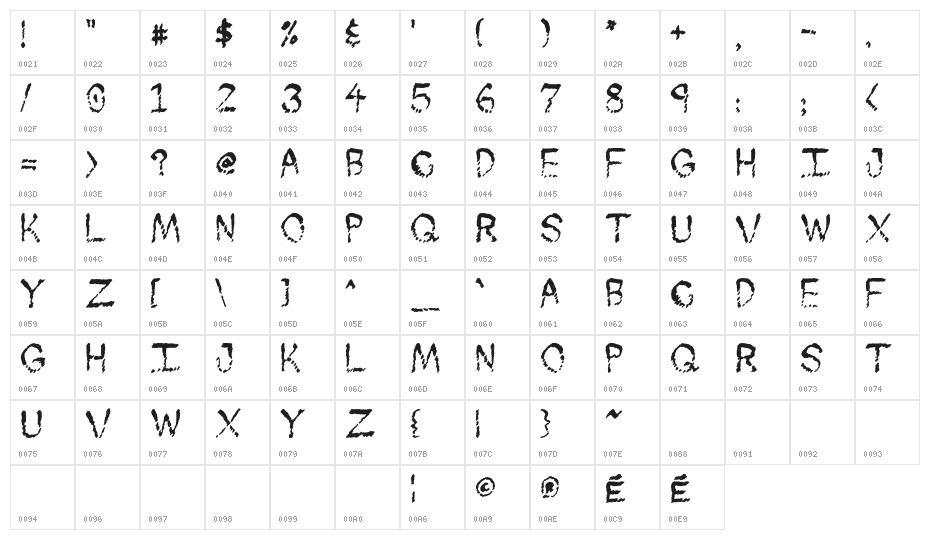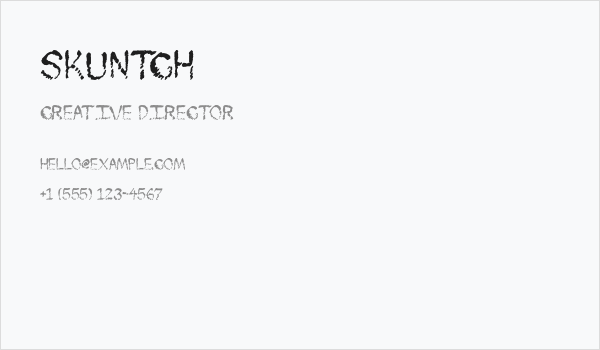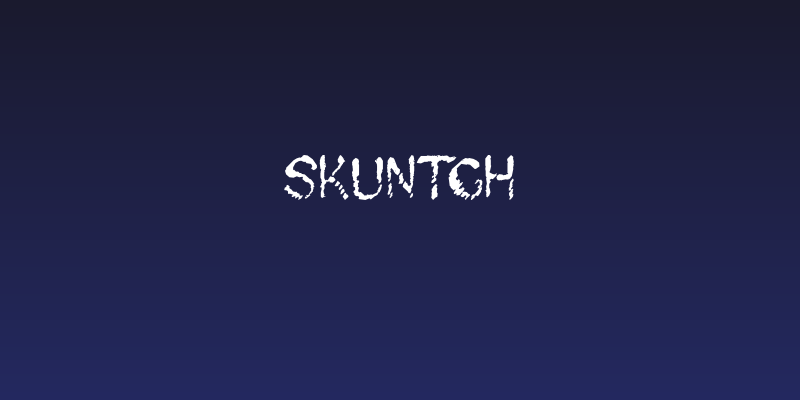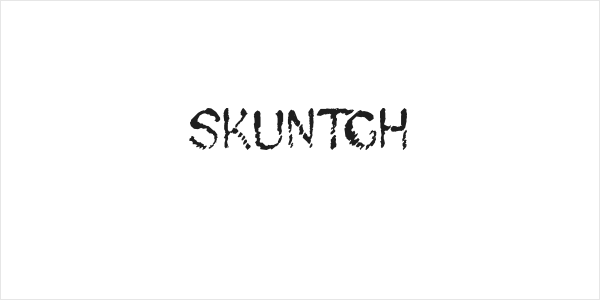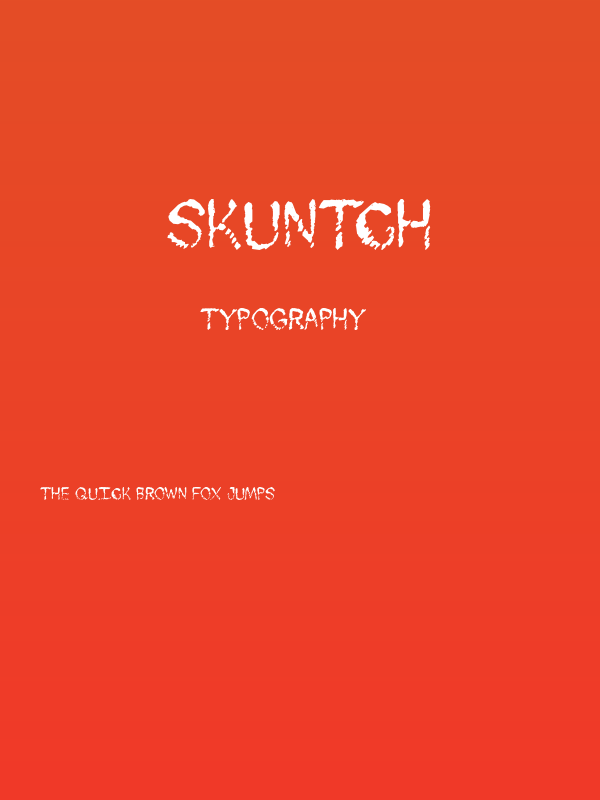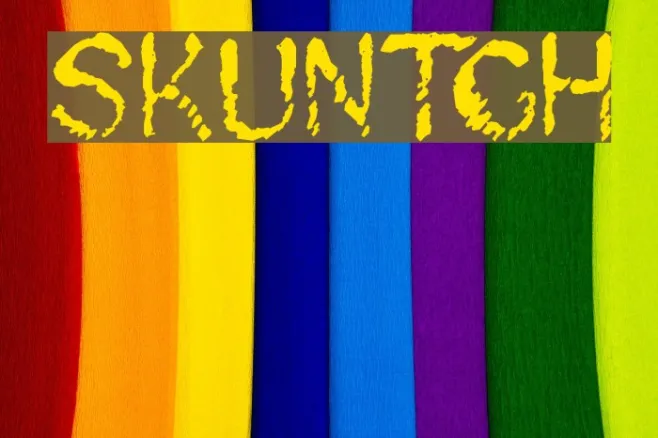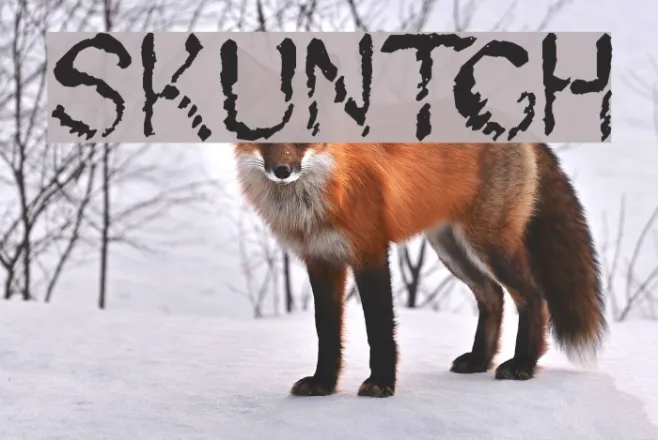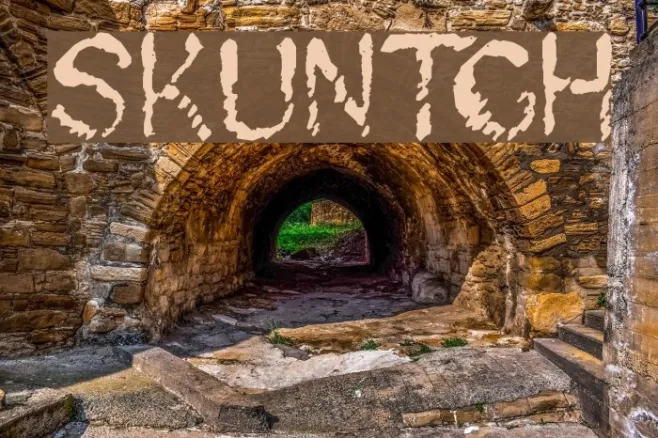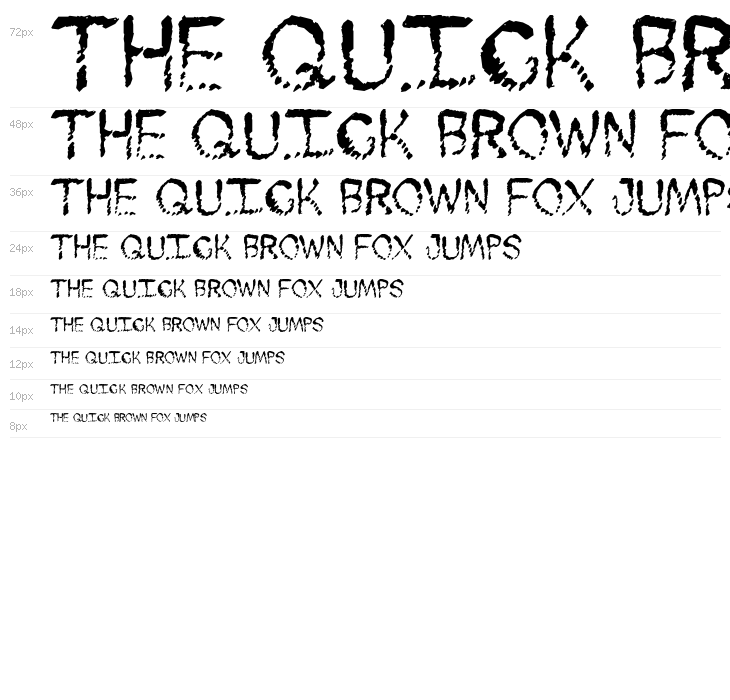
Skuntch Font
Skuntch Description
This font features a distressed, grunge style with irregular edges and a textured appearance, giving it a raw and edgy feel. The characters are bold and impactful, with a hand-drawn quality that adds a unique, artistic touch. The uppercase and lowercase letters maintain a consistent style, while the numerals and special characters complement the overall aesthetic. This font is ideal for projects that require a bold statement or a creative, unconventional look.
| Overall Style | Grunge, Artistic |
| Proposed Projects | Perfect for album covers, posters, streetwear branding, and edgy graphic designs. |